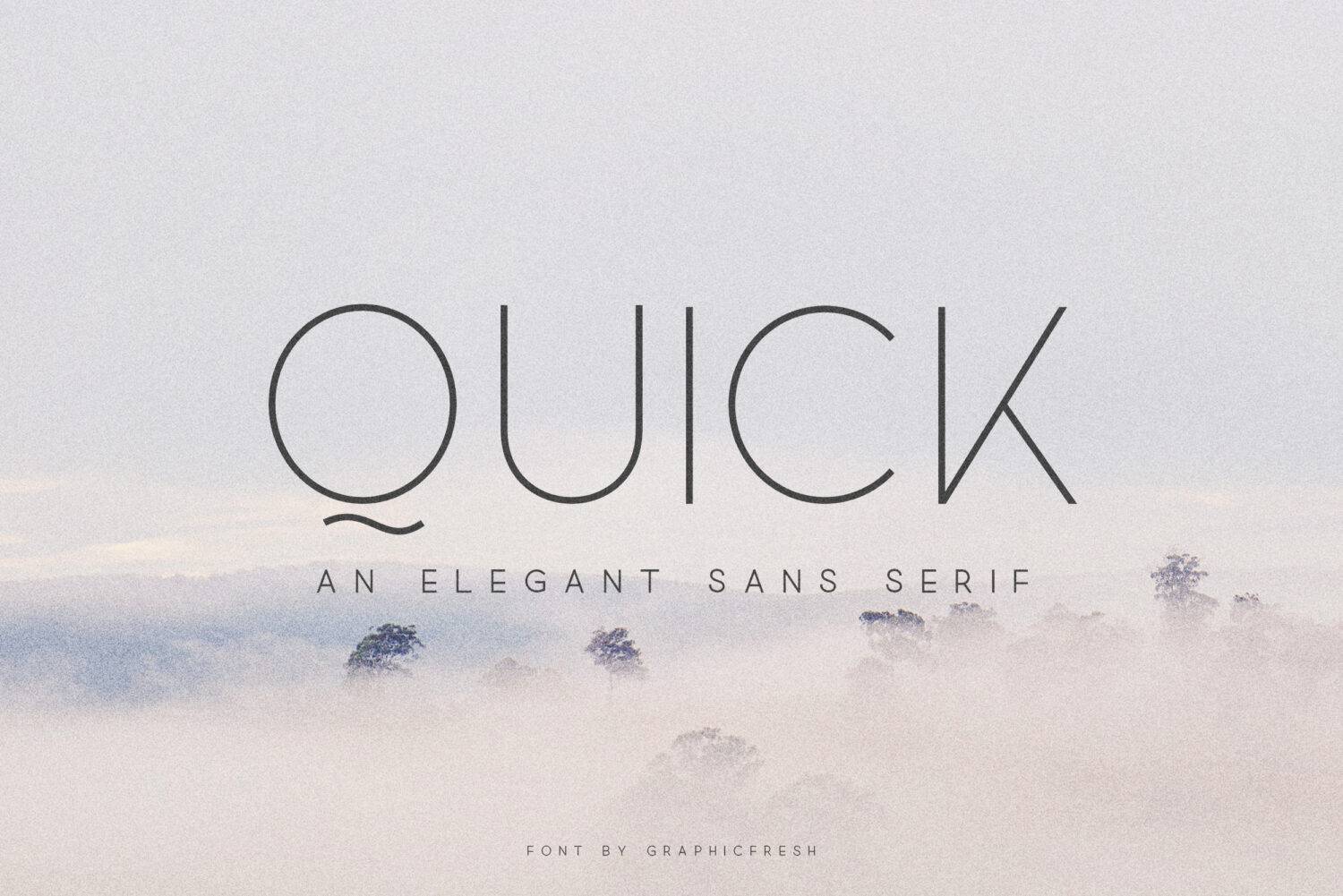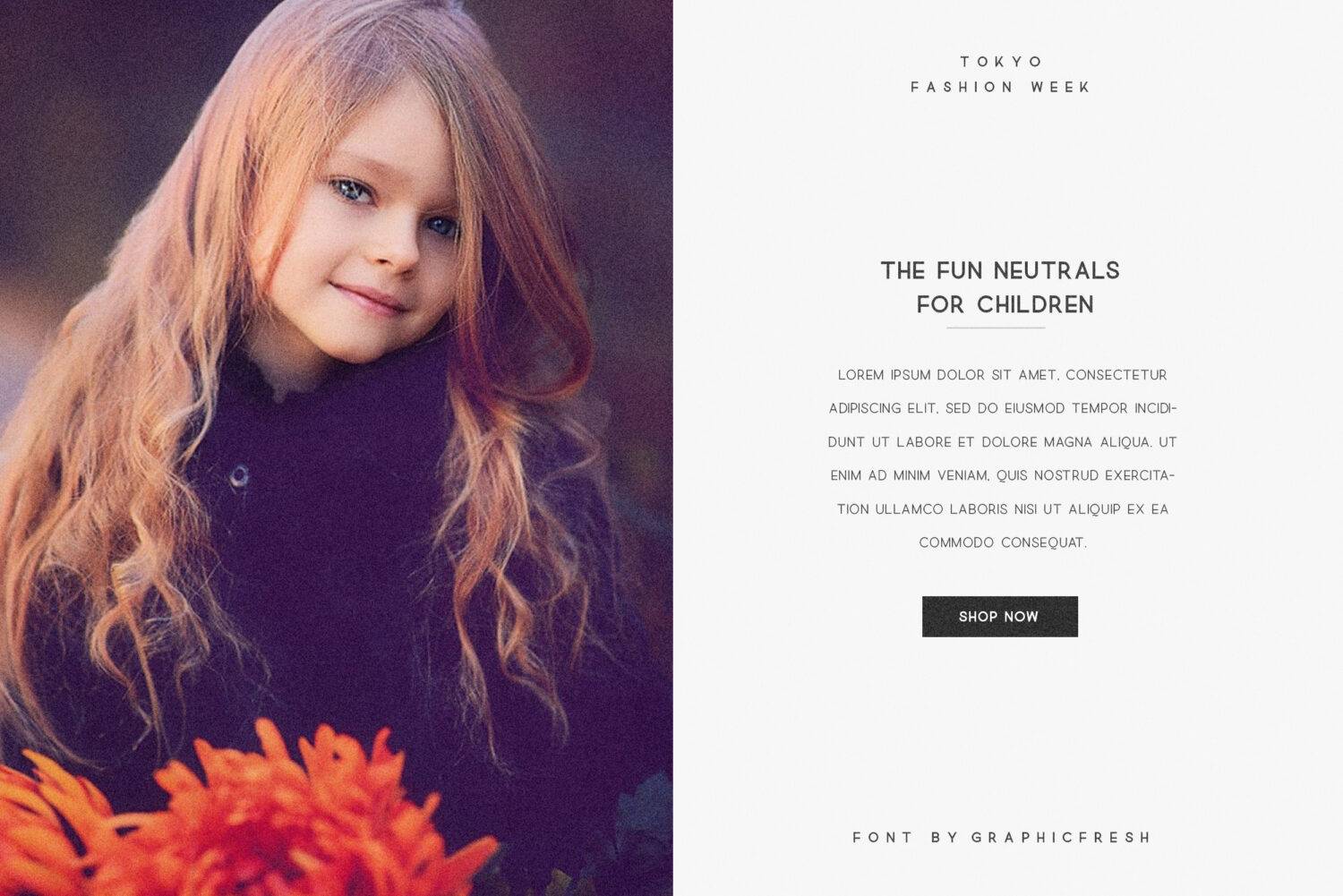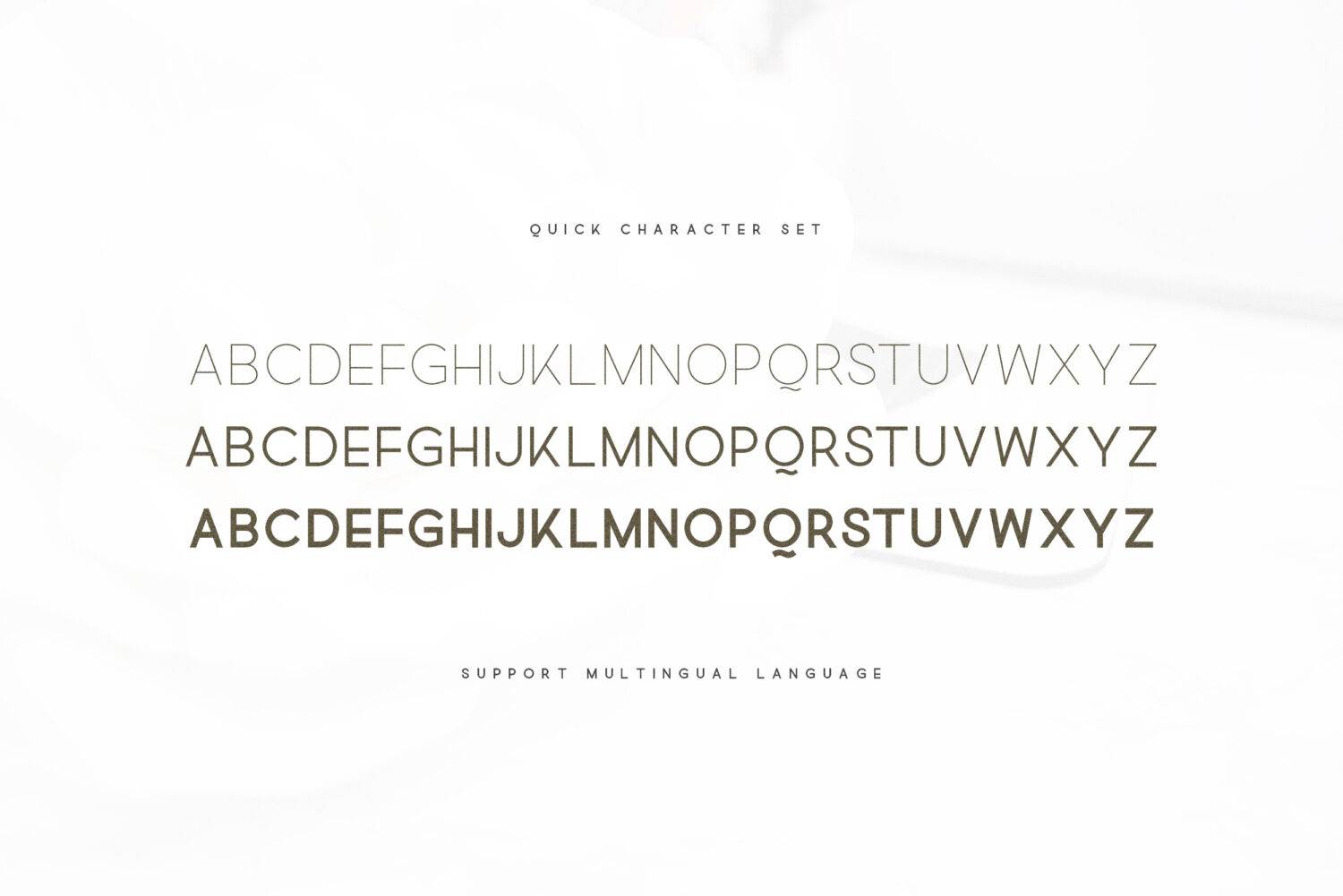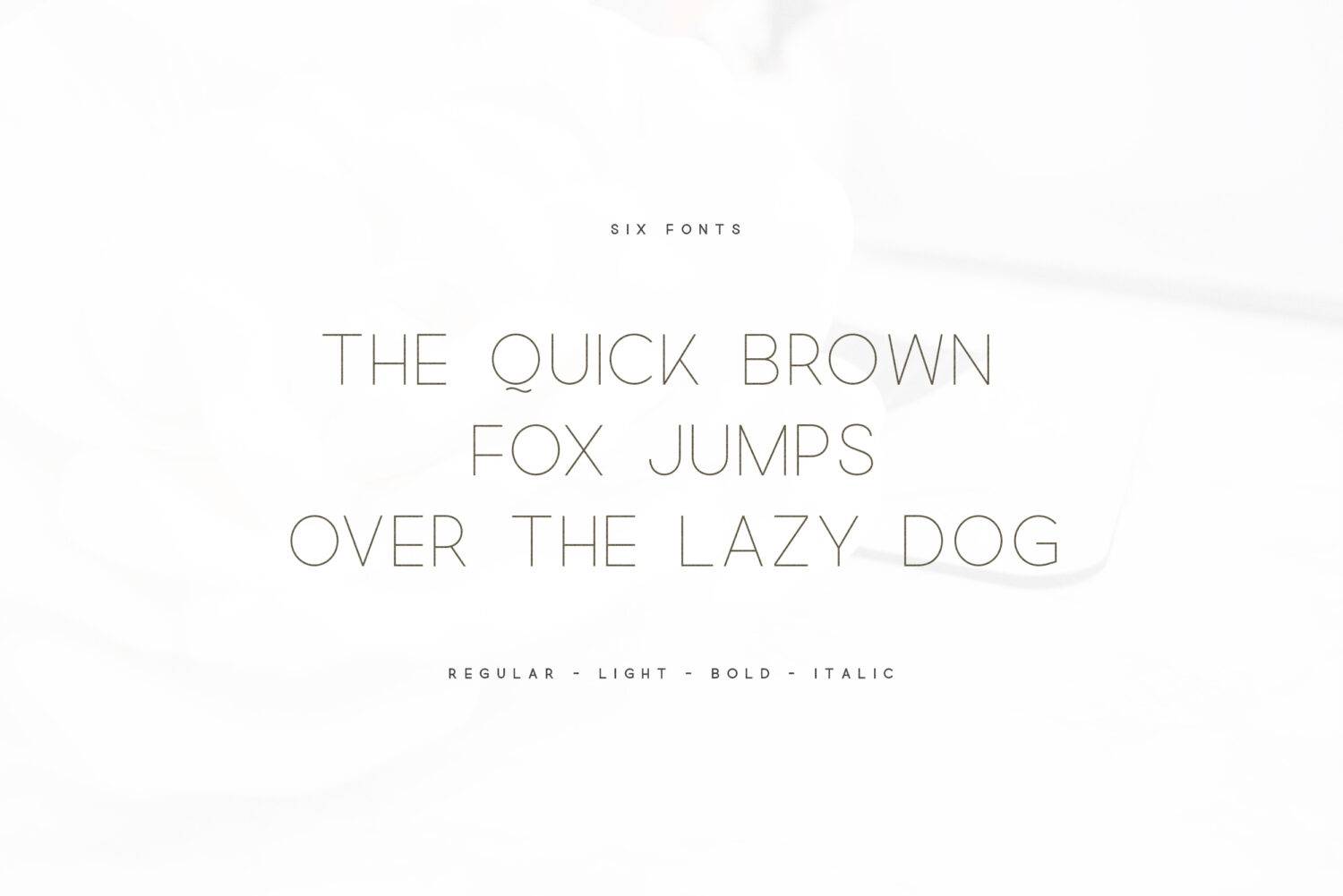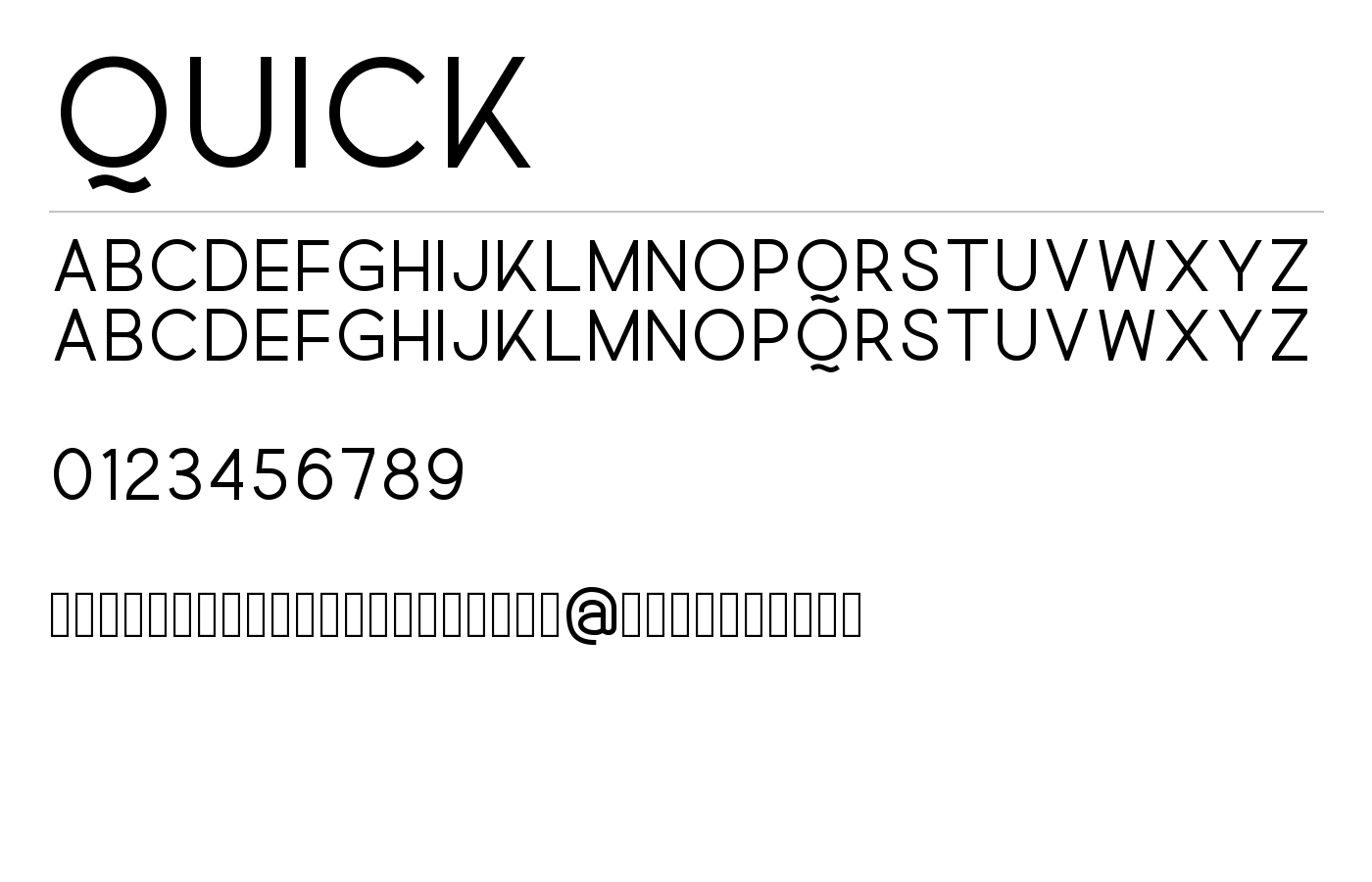
Quick is a clean and modern sans serif font characterized by its light weight, narrow width, and high x-height that make it highly legible and sleek. Its minimal stroke contrast and geometric shapes give it a contemporary, professional feel, ideal for branding, editorial headlines, and digital interfaces where clarity and elegance are key. This font works well for projects seeking a refined yet straightforward look that communicates efficiency and modernity.
Quick
About Quick
| Font family | Quick |
| Designer | Muhammad Husni Haikal |